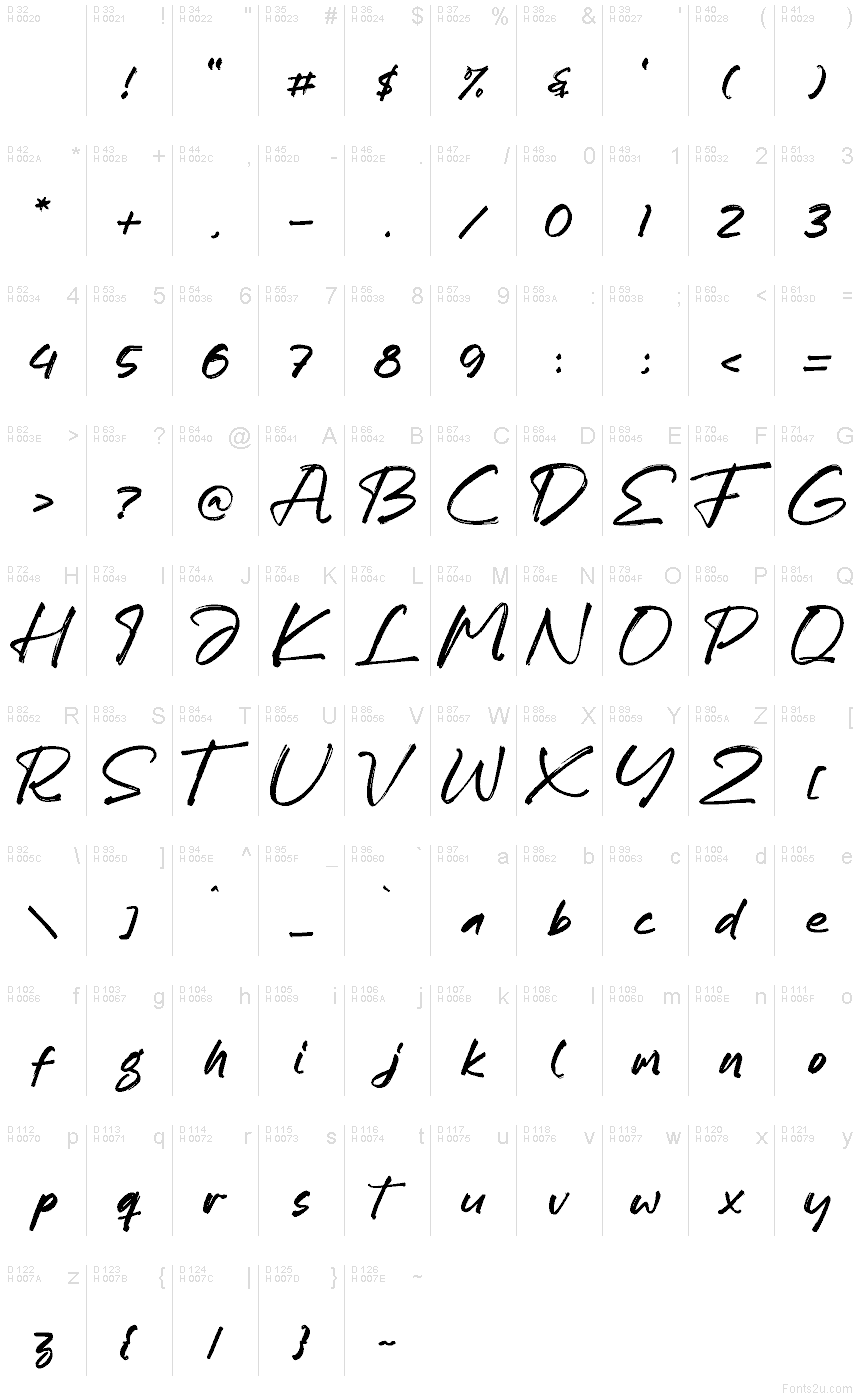
Laquentta Morelly
Laquentta Morelly font designed by Integritype Studio is a fluid motion italic typeface. This handwritten style font showcases an organic as well as expressive visual appeal and modern aesthetic. Laquentta Morelly presents a natural feel achieved through thin flowy black strokes.